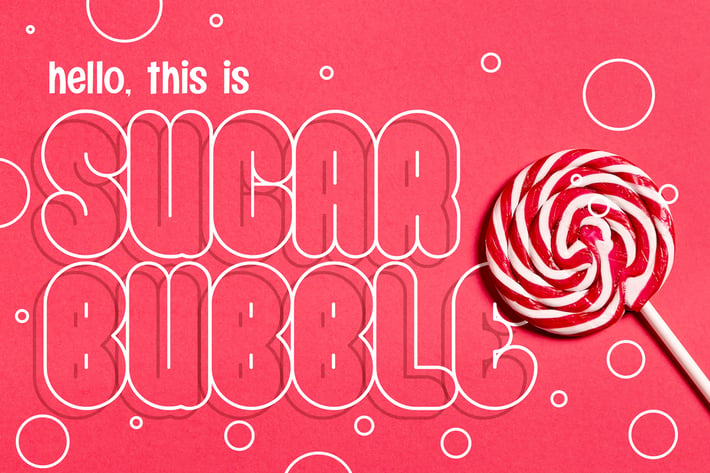
Sugar Bubble - Playful Typeface
Sugar Bubble is a sweet, funny, bold, and unique display font with a unique twist. Get inspired by its unique feel, and turn to add a lovely charm to any crafts project!